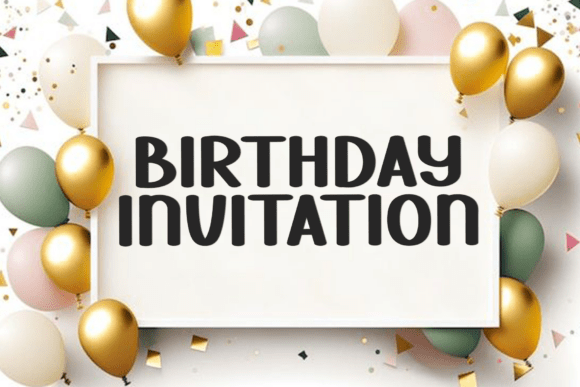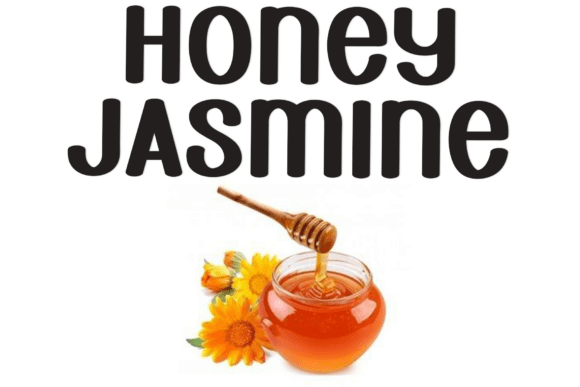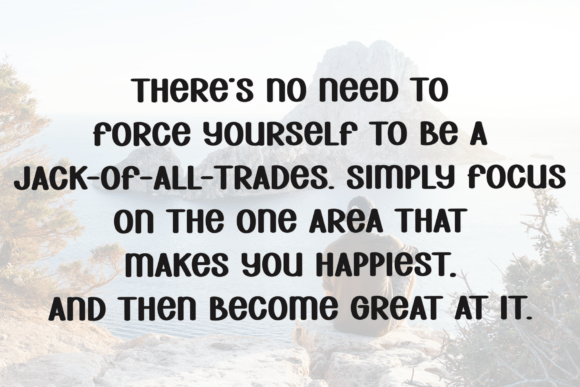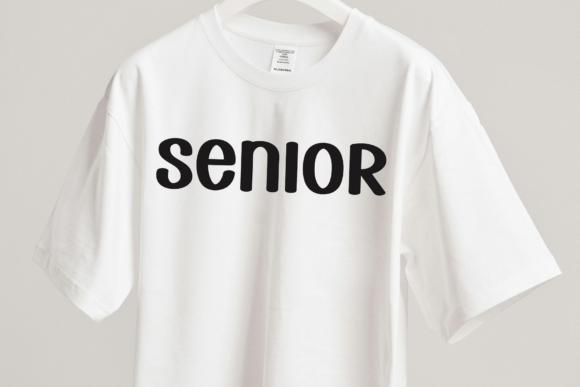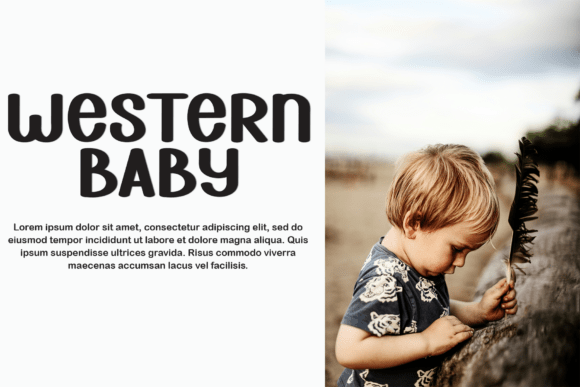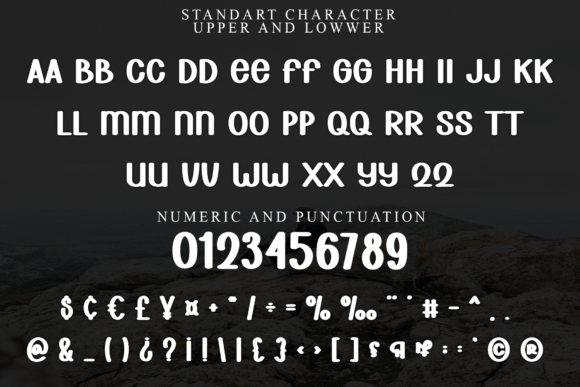
The Magic of the Holiday Season in Type
As the snowflakes start to fall and the fireplace crackles to life, you can’t help but feel a sense of wonder and enchantment. The holiday season is a time for magic, and what better way to capture that magic than with the perfect font?
Enter the Bubble Burst Font, a festive and merry typeface that’s sure to bring a touch of whimsy to your holiday designs. Whether you’re creating greeting cards, gift tags, or holiday-themed projects, this font is the perfect way to add a little extra sparkle to your typography. With its decorative elements and playful flair, the Bubble Burst Font is a valuable tool for any designer looking to bring a little bit of holiday cheer to their work.
As a PUA-encoded font, the Bubble Burst Font offers easy access to its amazing glyphs and ligatures, making it a joy to use in your designs. Whether you’re a seasoned pro or just starting out, this font is sure to bring a little bit of holiday magic to your work.
Bubble Burst Font Key Features
- Unique Characteristics: Bubble Burst Font features a playful, hand-drawn design with rounded bubbles and bold lines, creating a fun and whimsical feel.
Bubble Burst Font Review
Overall, I’m quite impressed with the Bubble Burst Font. ✨ It has a unique, playful feel that’s perfect for projects that need a fun, lighthearted vibe. The font is highly customizable, with a wide range of color options and style variations.
The font’s design is well-thought-out, with a clear attention to detail. The letterforms are well-balanced and easy to read, even at smaller sizes. ✨ I also appreciate the flexibility of the font, which can be used for both digital and print applications.
While the Bubble Burst Font is a great choice for many projects, there are a few limitations to be aware of:
- ⚠️ Limited language support: The font only supports a limited number of languages, which may be a issue for projects that require multilingual support.
- ⚠️ Limited scalability: While the font looks great at smaller sizes, it may not be suitable for large-scale applications where clarity is crucial.
Overall, I’d recommend the Bubble Burst Font for projects that require a fun, playful vibe. With its high level of customization and flexibility, it’s a great choice for designers who want to add some personality to their work.
The Bubble Burst Font is ideal for:
1. Social media graphics and posts.
2. Advertising and promotional materials.
3. Party invitations and decorations.
4. Children’s educational materials and games.